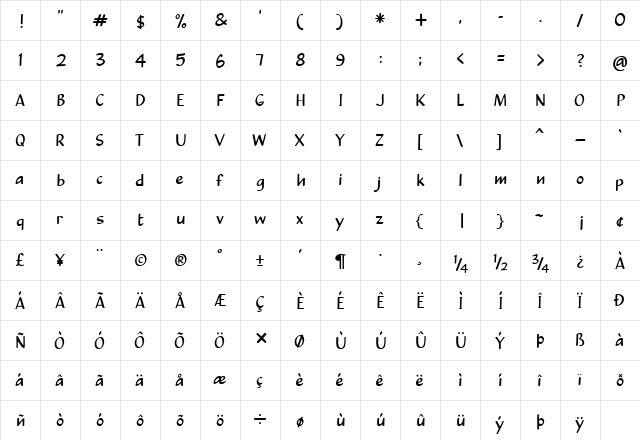
Calculus Sans Regular
Design Context for Calculus Sans Typeface
Calculus Sans is a composed and adaptable typeface that performs quietly and consistently across a wide range of design contexts.